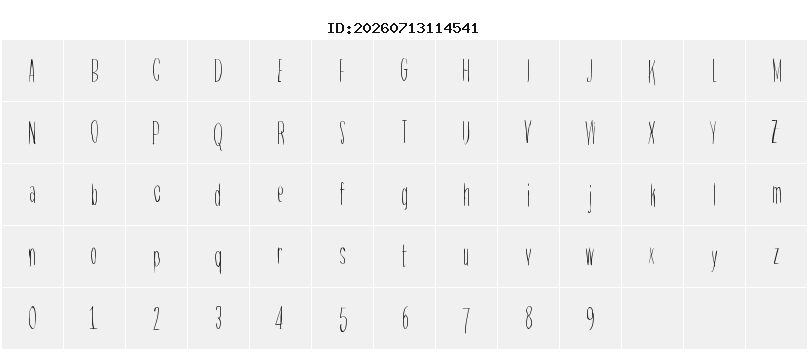
• Font Name: Raccoon
About Raccoon.ttf
Raccoon.ttf is a modern, elegant sans-serif font designed for ultimate readability and visual harmony. Perfect for branding, headlines, web design, and print materials.